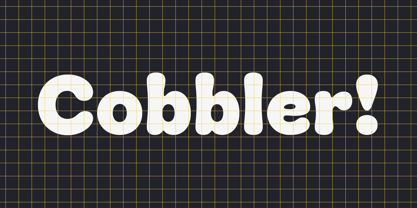
Cobbler Font
The Cobbler Font is a friendly and versatile typeface family that effortlessly blends geometric shapes with a soft, approachable feel. Its clean lines and distinctively rounded terminals make it an excellent choice for a variety of creative applications. Imagine it on the branding for a boutique ice cream shop, a vibrant poster for a kids' party, or the fun, welcoming logo for a new bakery. It’s also perfect for creating engaging social media posts, blog headers, and product packaging, where its warm and playful character can truly shine. The Cobbler Font brings a sense of modern simplicity and friendly charm to any project, ensuring your designs are both legible and inviting.
What makes this font so exciting is its unique combination of geometric form and a huggable, ultra-soft exterior. The few remaining straight lines give the typeface the stability of a workhorse font, but the complete absence of sharp corners and the organic shaping of its terminals create a truly unique and playful vibe. It’s a typeface that feels meticulously designed yet still casual and full of personality. This isn’t just a font; it’s a design tool that conveys a sense of modernity, reliability, and warm-hearted style. The Cobbler Font is a powerful tool for designers who need a typeface that works hard without compromising on personality, making your designs look polished and trustworthy.
The Cobbler Font family is comprehensive and robust, providing a full range of weights to suit any design need. The family includes Light, Regular, Medium, Semi Bold, Bold, and Black, giving you the ability to create a clear visual hierarchy in your designs. Each weight maintains the font's distinctive rounded style, ensuring a consistent and professional look across all your materials. This expanded family provides the tools you need to use the font effectively for both large, dramatic headlines and detailed body text, making it an invaluable addition to any designer's toolkit. The different weights of the Cobbler Font ensure that your message is always clear and professionally presented, no matter the medium.